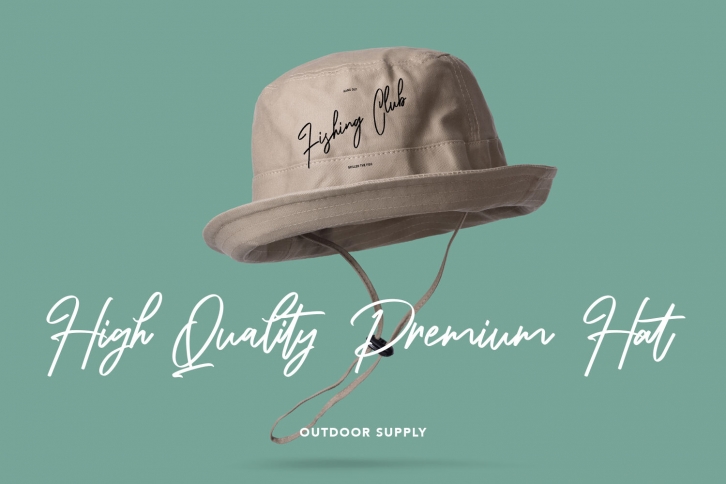
Thefrost Modern Script Font Download
Give your designs an authentic handcrafted feel. Thefrost Modern Script Font is perfectly suited to stationery, logos and much more.